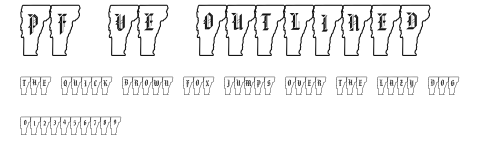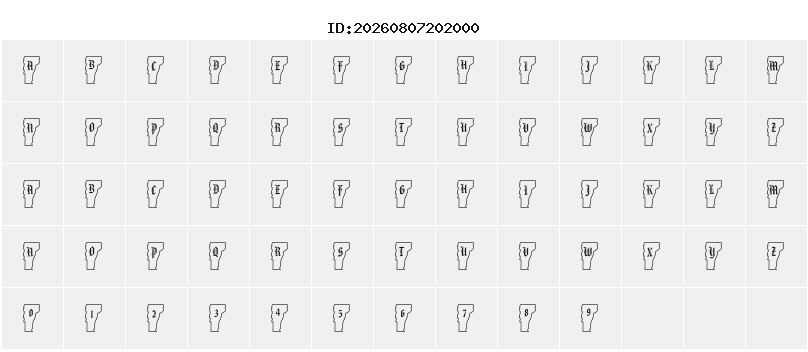
pf_ve-outlined Preview
• Font Name: pf_ve-outlined
• Font ID: PlanckFoamScholarlyDragonPressFreeware: pf_ve-outlined: 2001
• Full Font Name: pf_ve-outlined
• Version: 2001; 1.0, initial release
• PostScript Name: pf_ve-outlined
• Character Count: 66
• Designer: David E. Howerton
About pf_ve-outlined.ttf